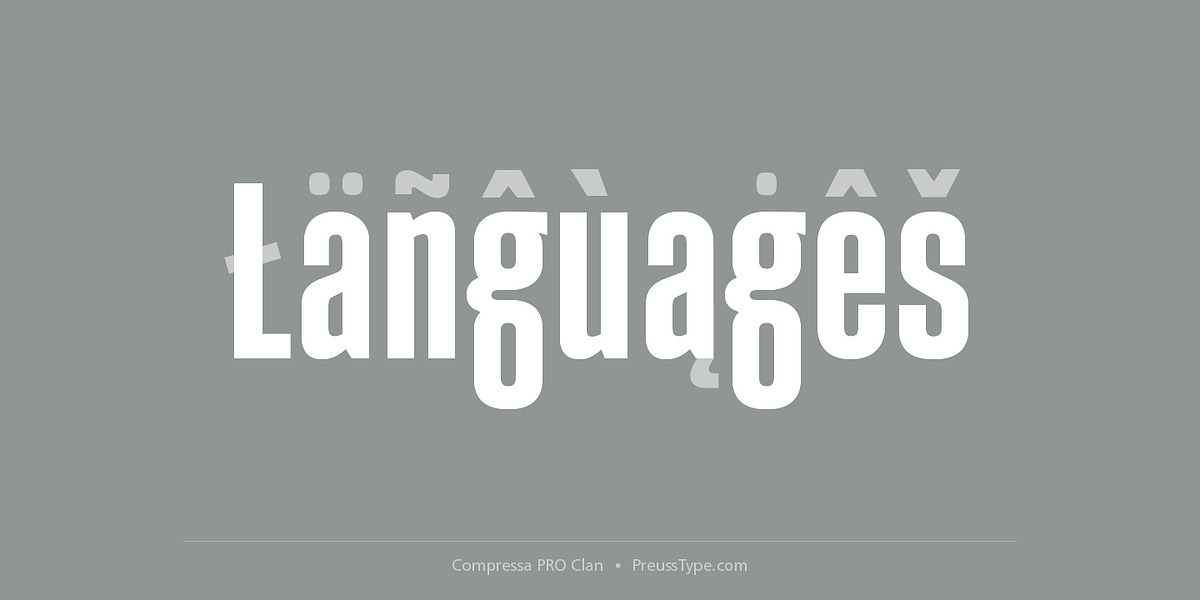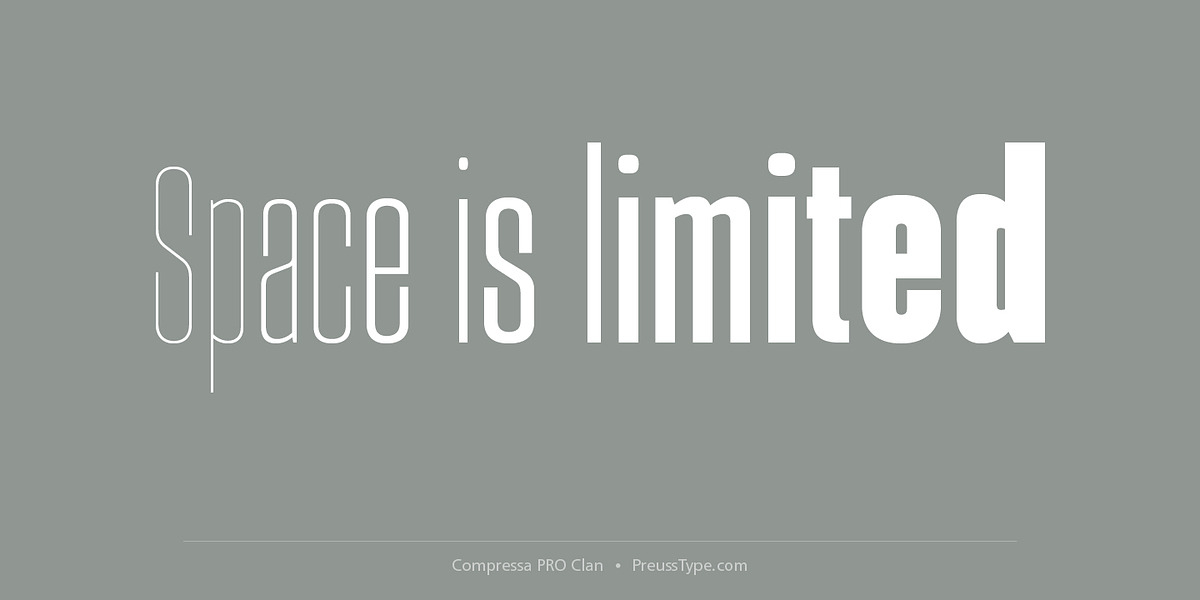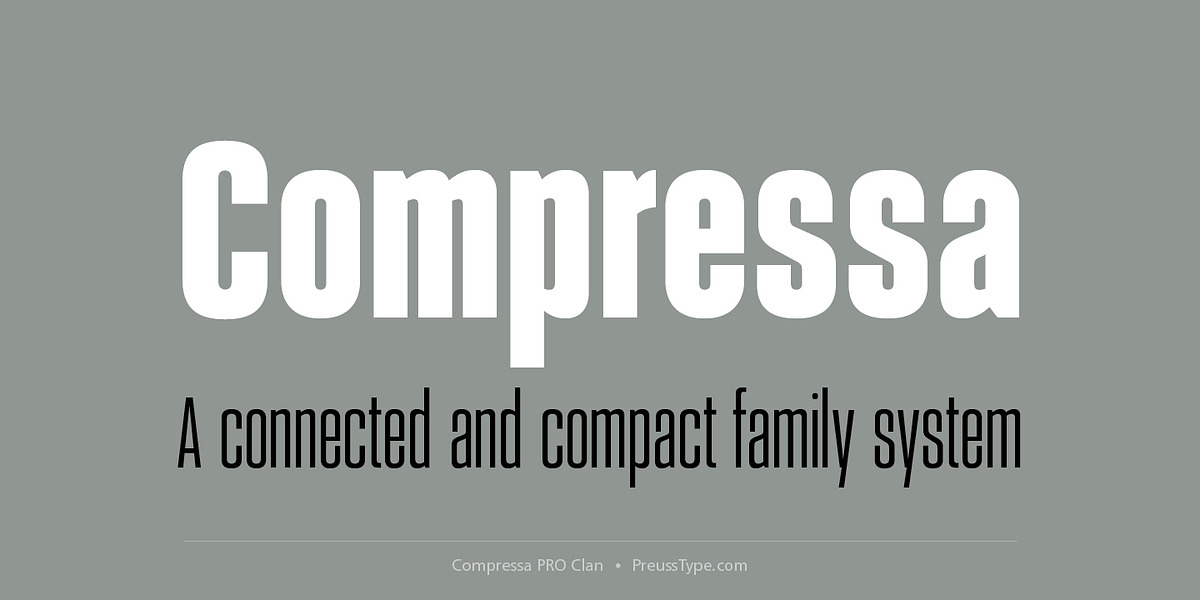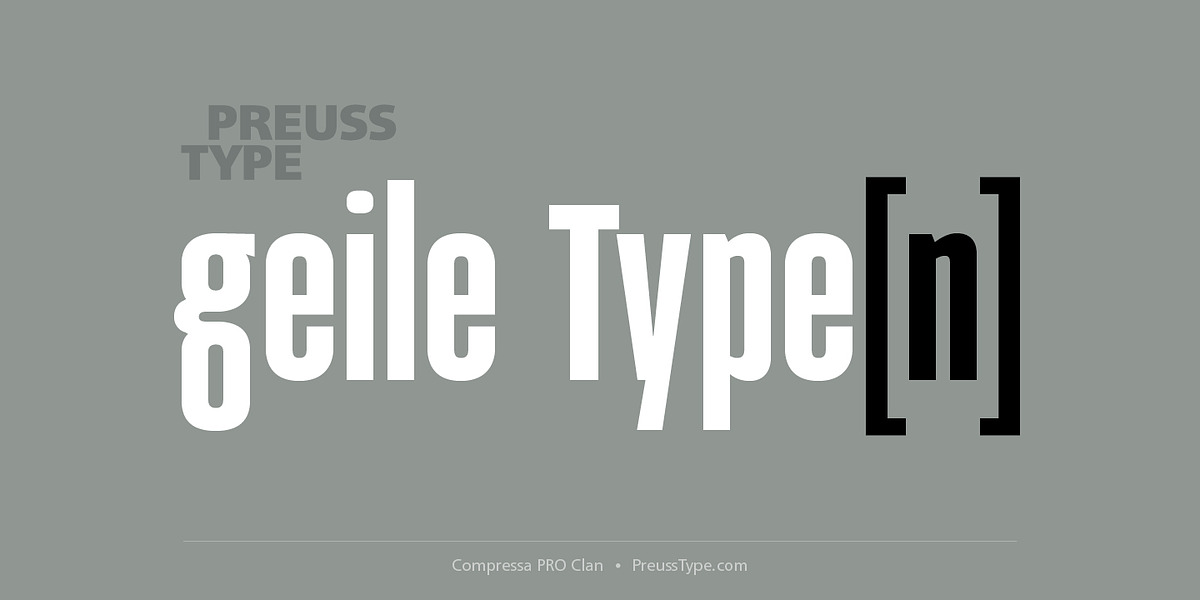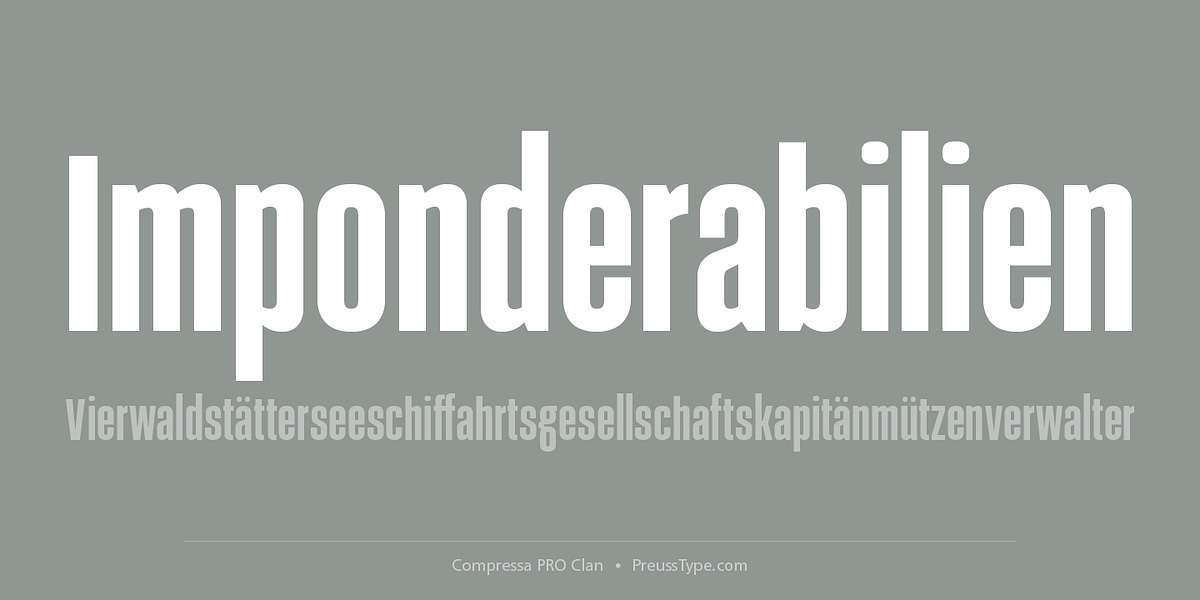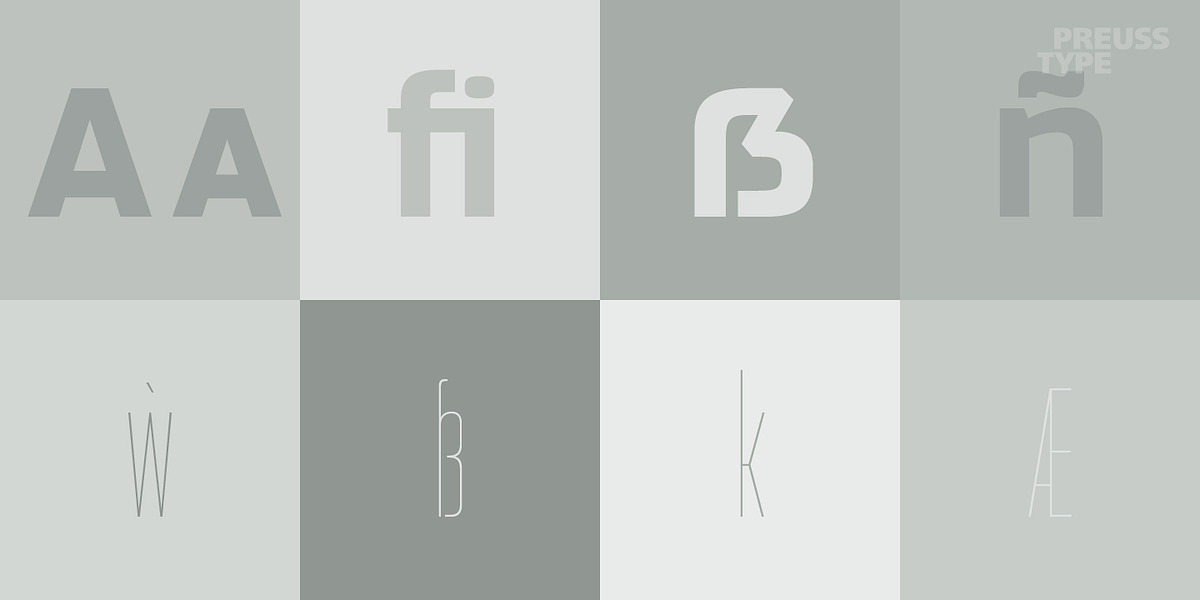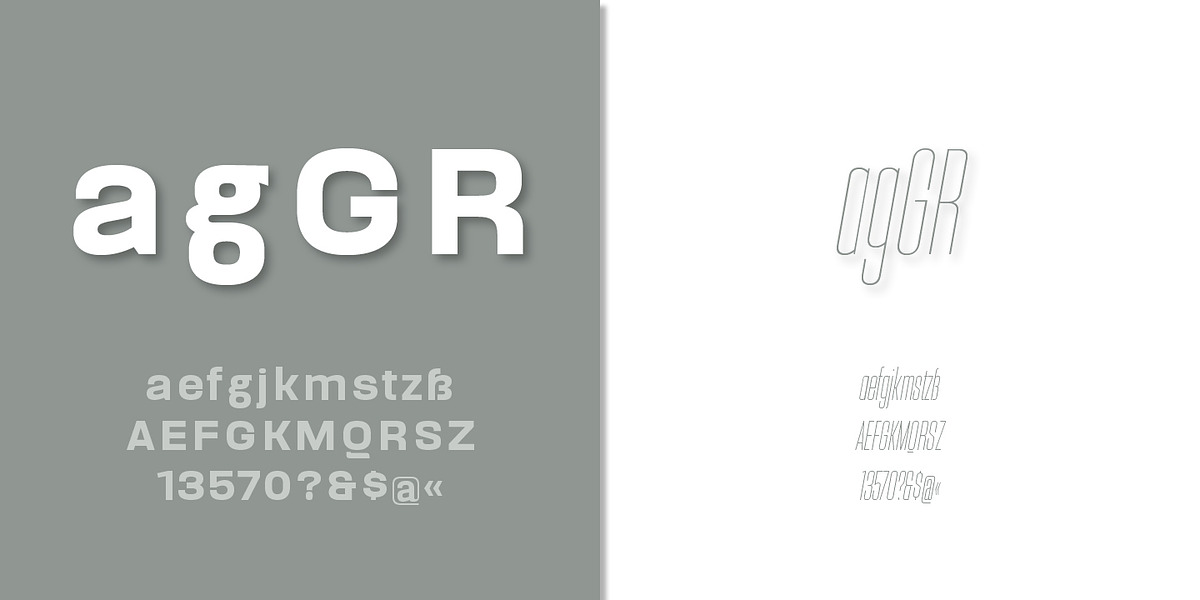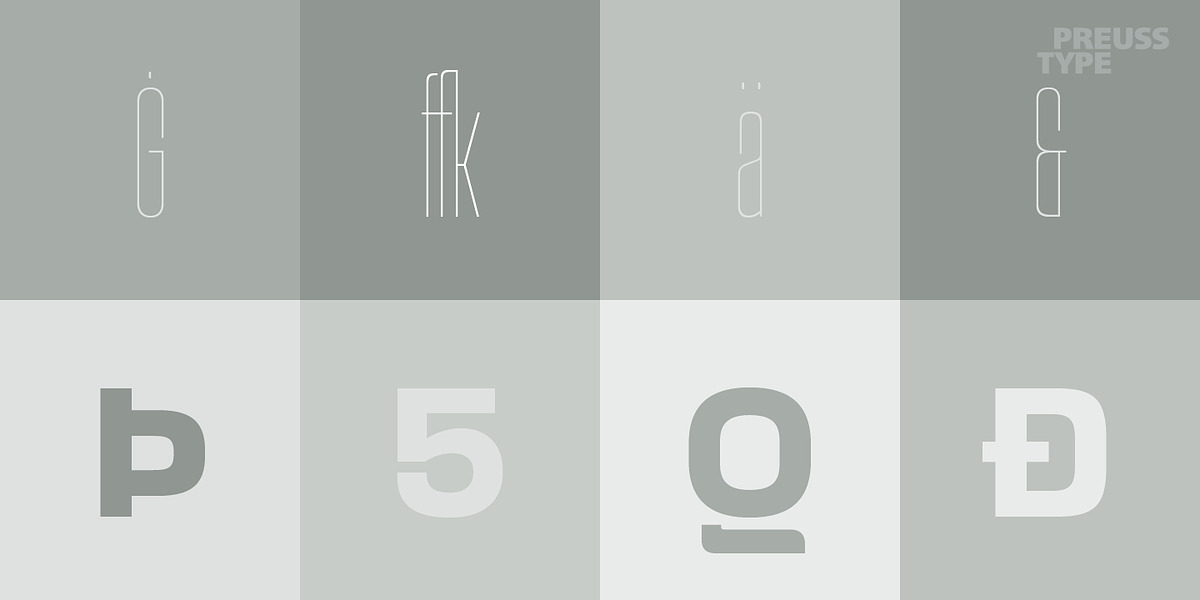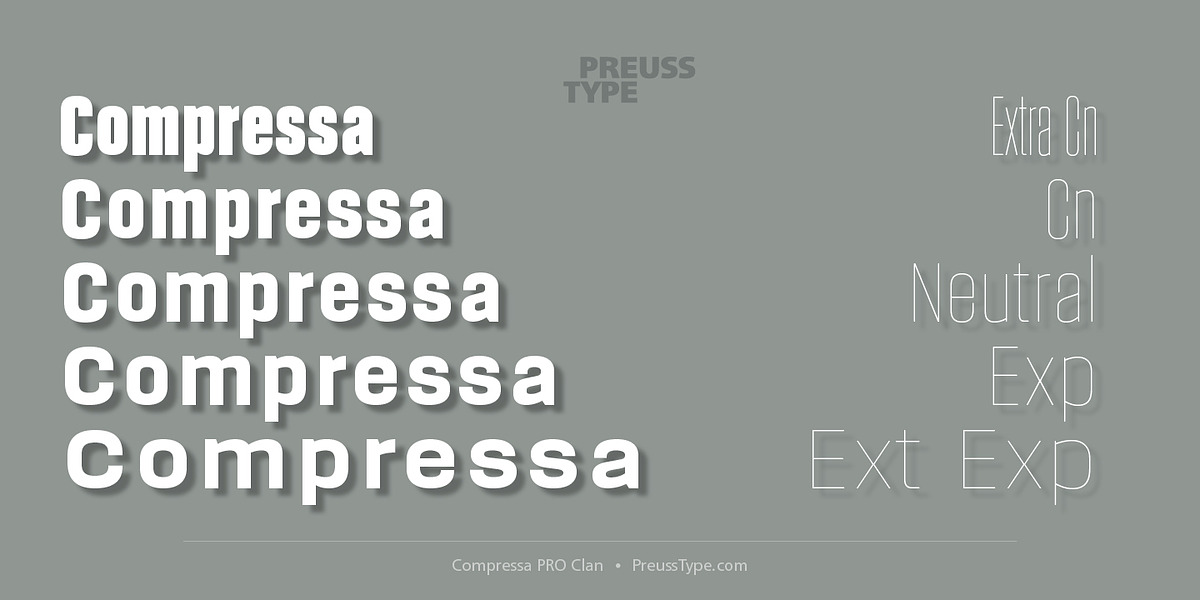
Compressa PRO
The Compressa typeface is a modern sans-serif font family designed for versatility. It offers a vast range of weights and widths (80 single cuts total), divided into five widths each with 16 individual styles. This comprehensive system allows for precise typographic control in various applications, particularly suited for headlines, titling, and branding.